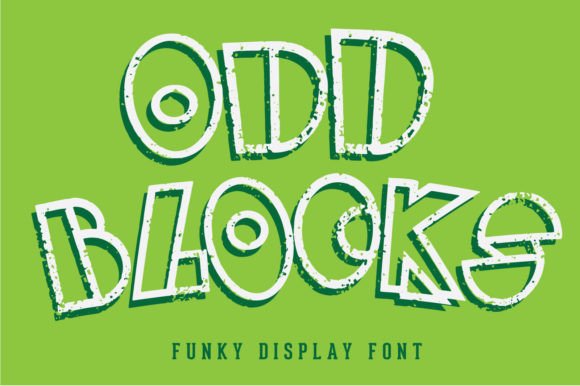
Prepare to be mesmerized by Odd Blocks Font, the eccentric display font that will ignite your creativity and make your designs stand out like never before. This typographic masterpiece, crafted by the talented Stompstock, invites you to unleash your imagination and explore a world of limitless possibilities.
Odd Blocks Font is not just a font; it's an artistic expression that brings vibrancy and personality to your designs. Its unique, blocky characters exude a sense of playfulness and intrigue, captivating the eyes and leaving an unforgettable impression.
Imagine your designs adorned with Odd Blocks Font, turning heads and sparking conversations wherever they appear. Whether it's a perfume label that exudes elegance, a cosmetics packaging that radiates glamour, or a magazine cover that demands attention, Odd Blocks Font becomes an integral part of your creative vision.
Its versatility knows no bounds. Create posters that come alive with energy, manifests that command respect, flyers that entice and captivate, and fashion designs that ooze sophistication. Odd Blocks Font seamlessly blends with your ideas, enhancing their impact and leaving a lasting impact on your audience.
But Odd Blocks Font is more than just a visual spectacle; it's a font that speaks to your soul. Its quirky charm and unconventional style ignite a spark of creativity, inviting you to push boundaries and embark on a typographic adventure.
As you incorporate Odd Blocks Font into your designs, you'll discover a new level of creative freedom. It's a font that inspires, empowers, and allows your imagination to run wild.
Join the ranks of design enthusiasts who have embraced Odd Blocks Font and witnessed the transformation it brings to their work. Experience the thrill of creating designs that resonate with your audience, designs that captivate and inspire, designs that leave an indelible mark.
Odd Blocks Font is more than just a font; it's a gateway to a world of creativity and self-expression. Embrace its eccentricity, let your imagination soar, and witness the birth of designs that are truly extraordinary.